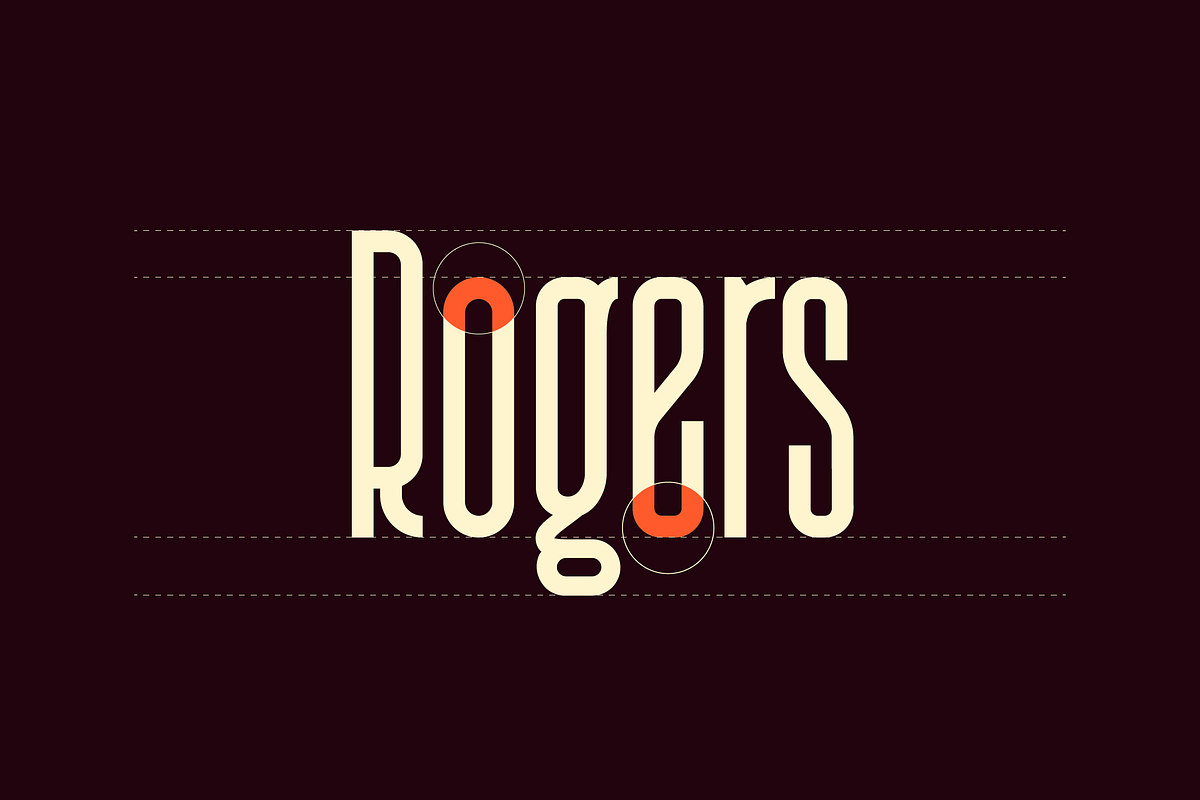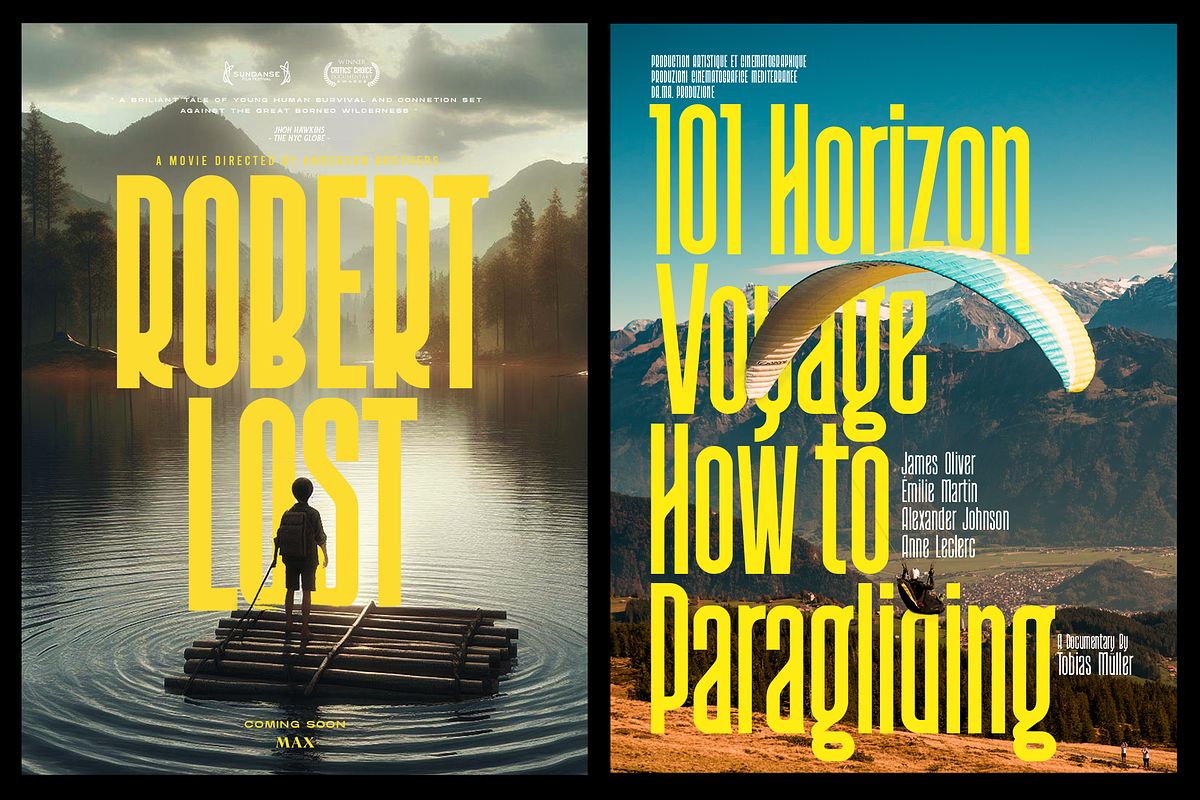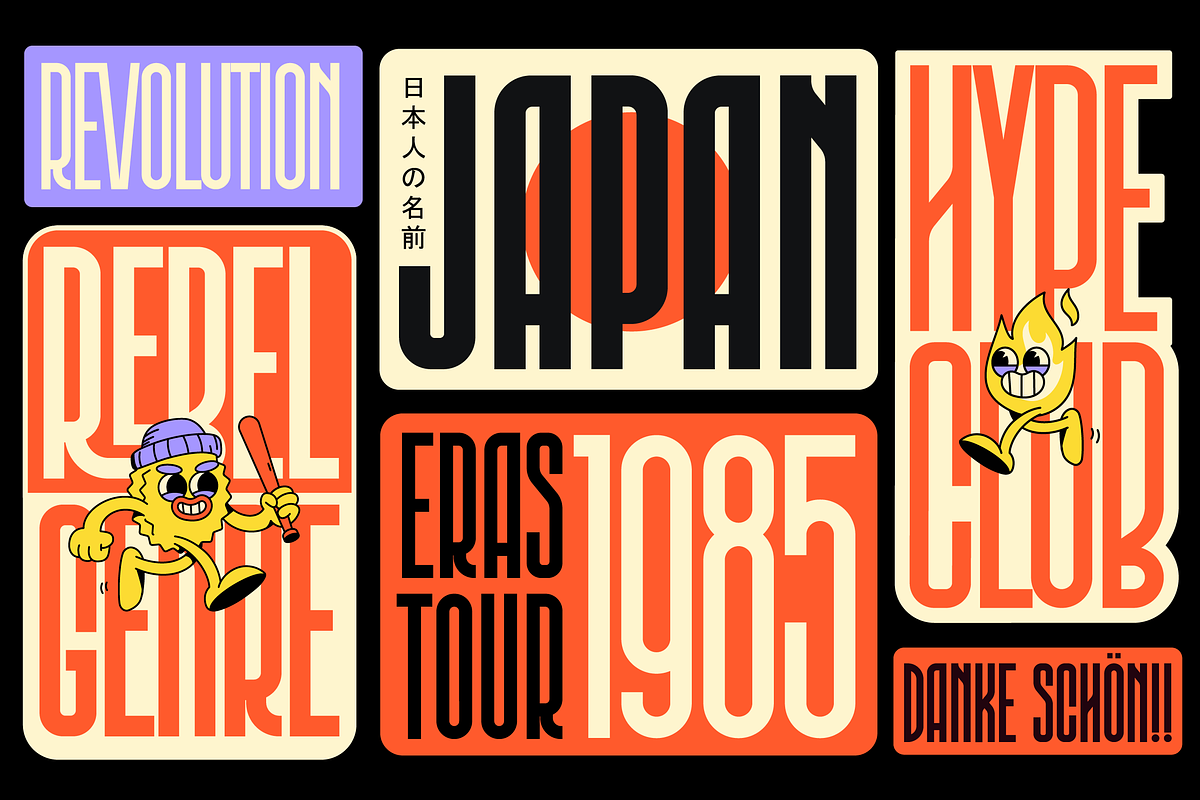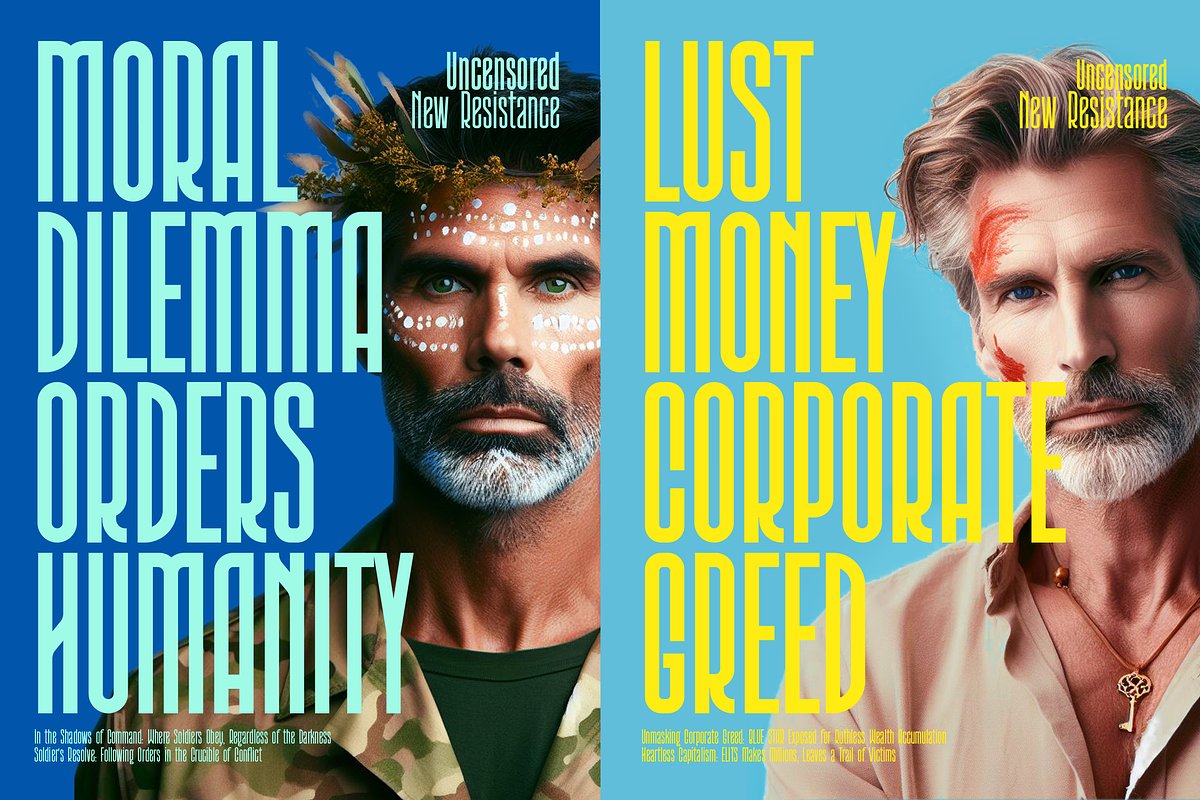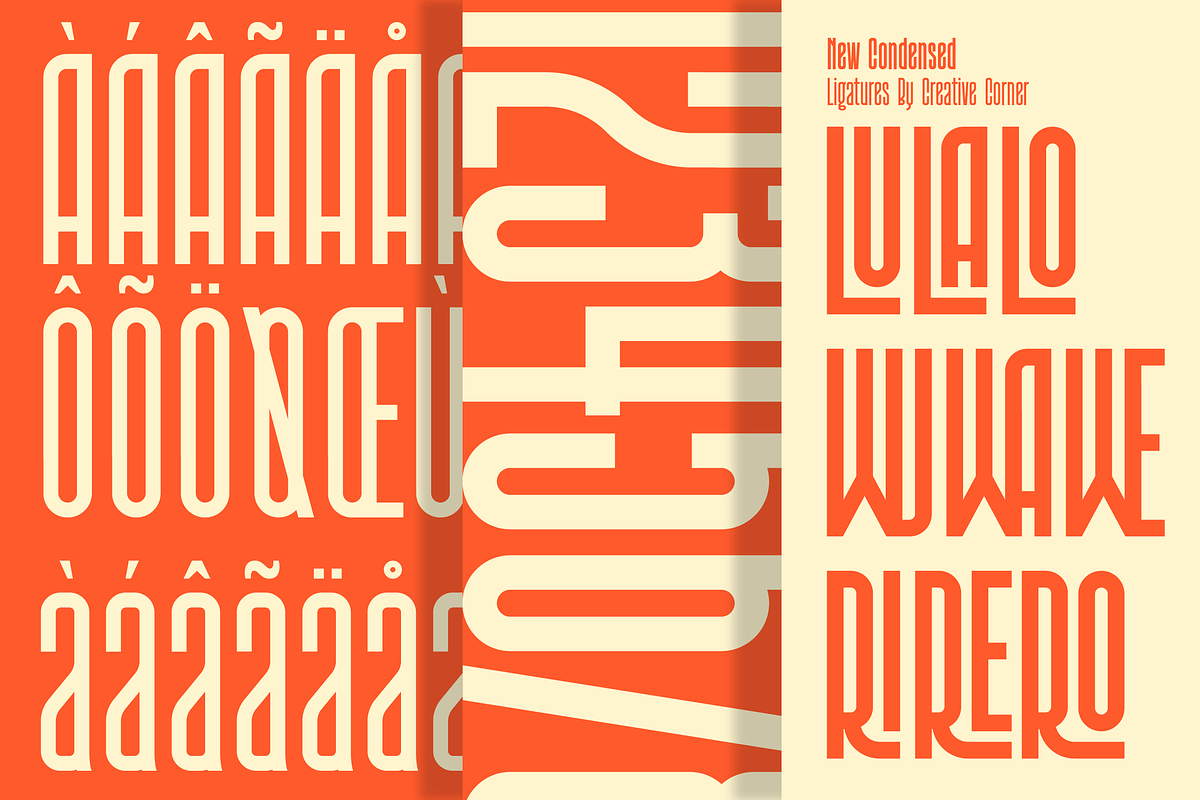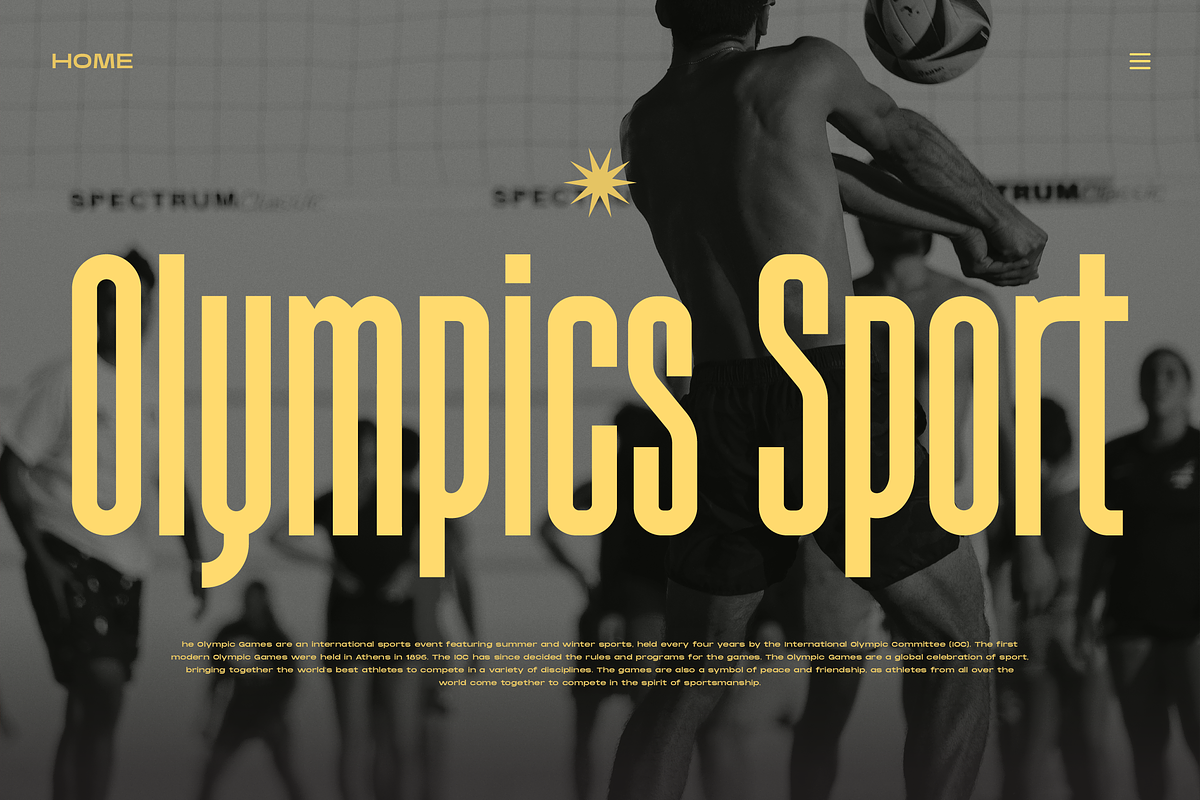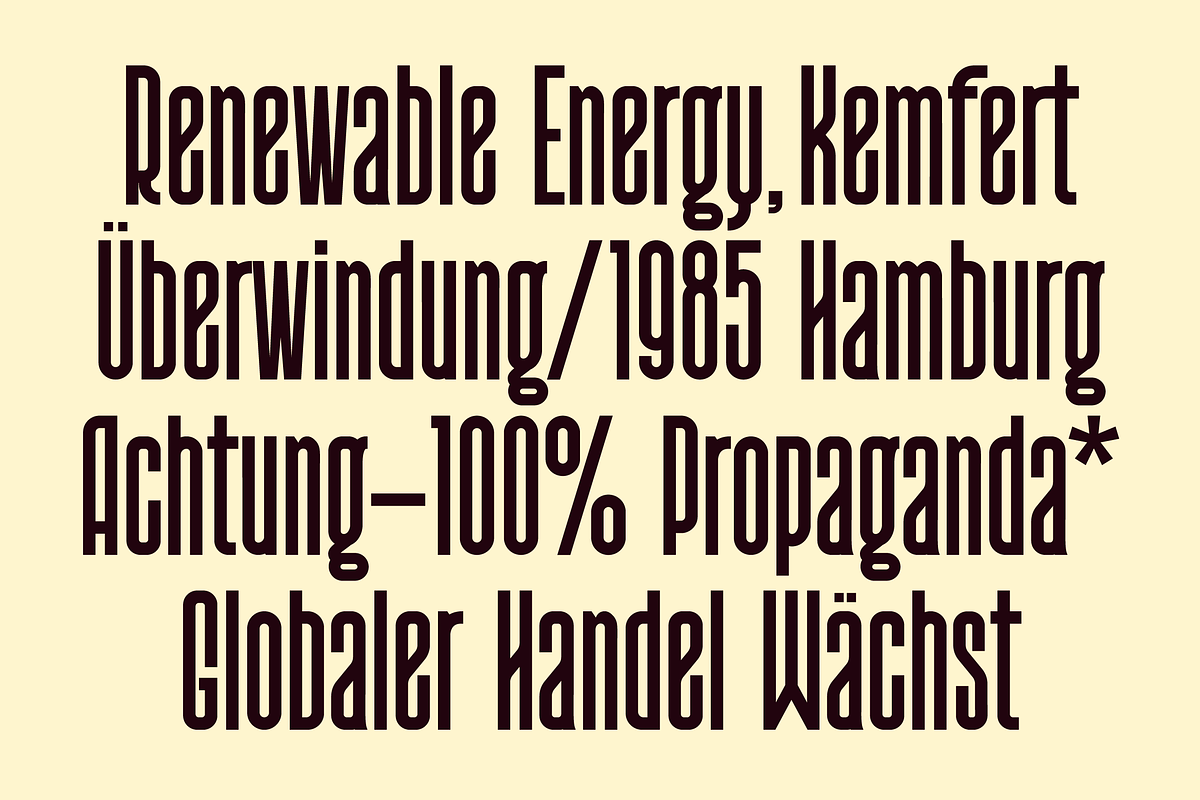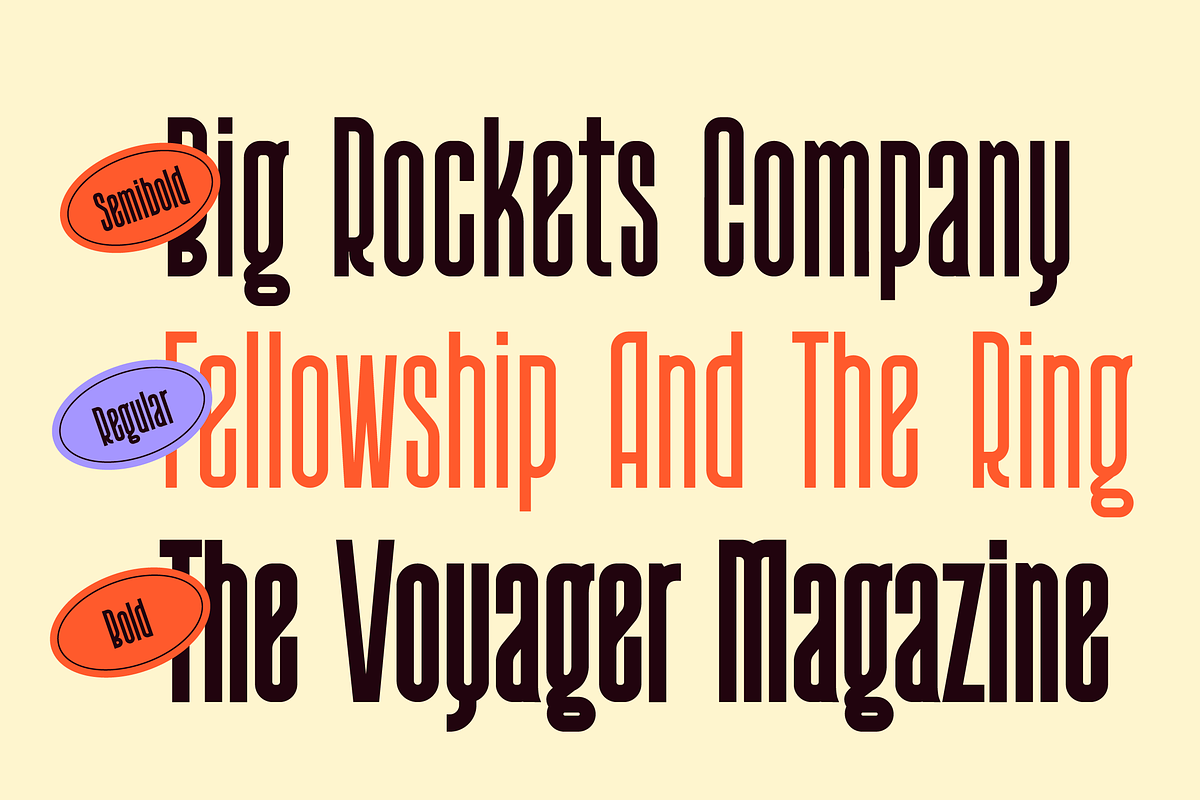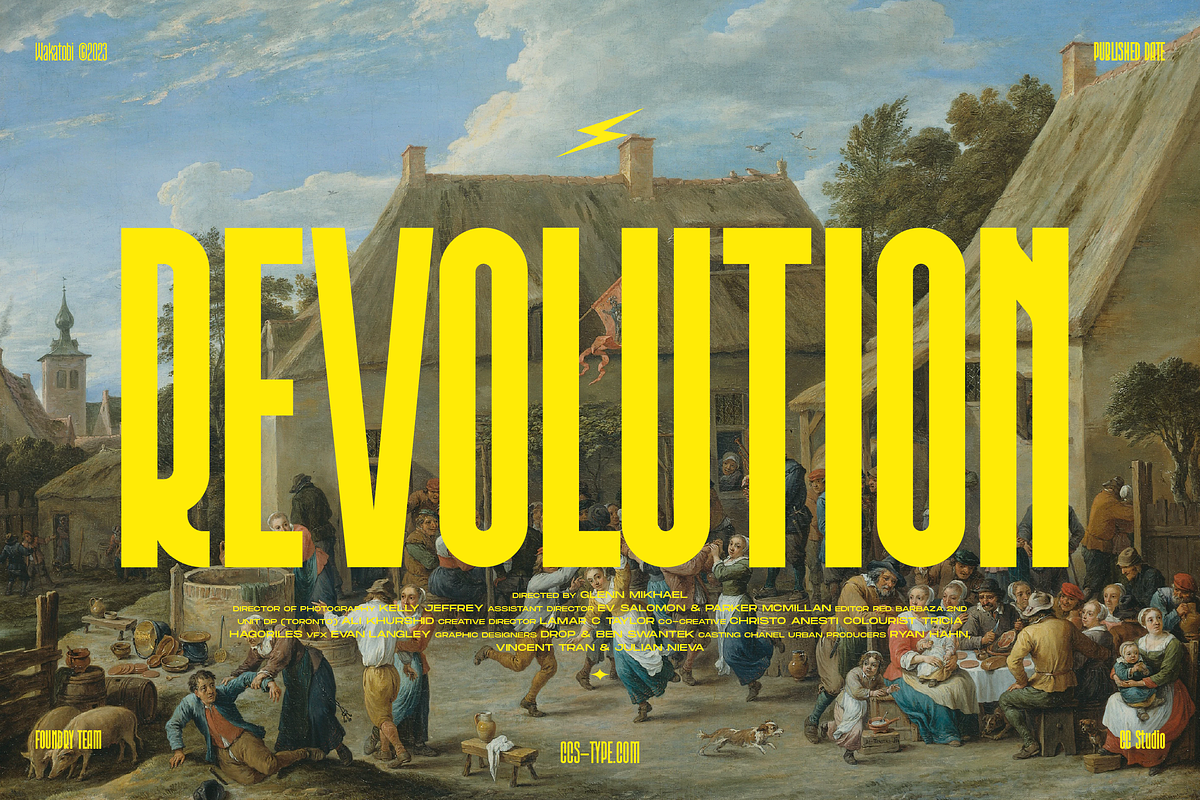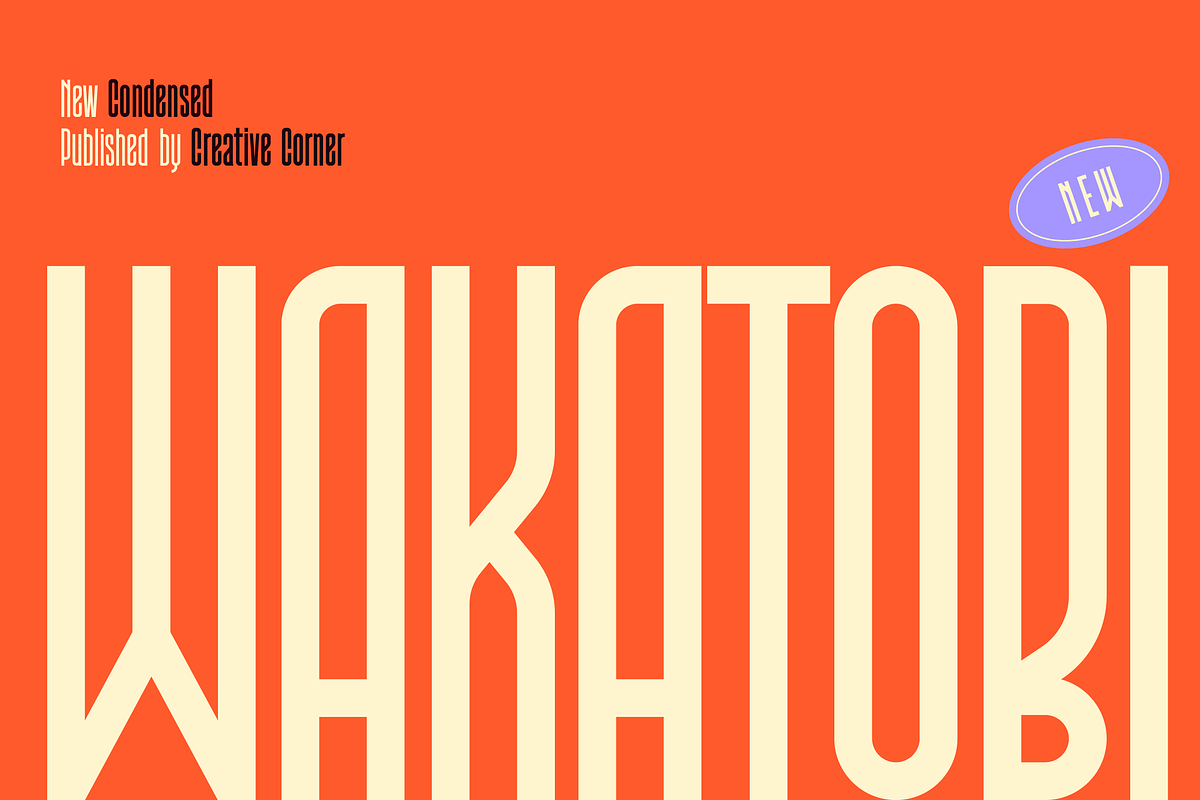
Wakatobi - Ultra Condensed Font
Introducing Wakatobi, our newest font creation that exudes power and beauty through its condensed sans serif display. With a distinctive character and unique form, Wakatobi is a formidable typeface designed to captivate attention. Ideal for magazine spreads, covers, and posters in large print, this massive font is tailored for titles and wide spaces. Specifically crafted for covers and posters, Wakatobi ensures it doesn't go unnoticed, making a bold impact without compromising style or legibility. Whether in large-scale designs or smaller point sizes, Wakatobi stands out, delivering a visual punch that resonates with both impact and elegance.
3 Weights font
Stylistic Alternates & Ligatures